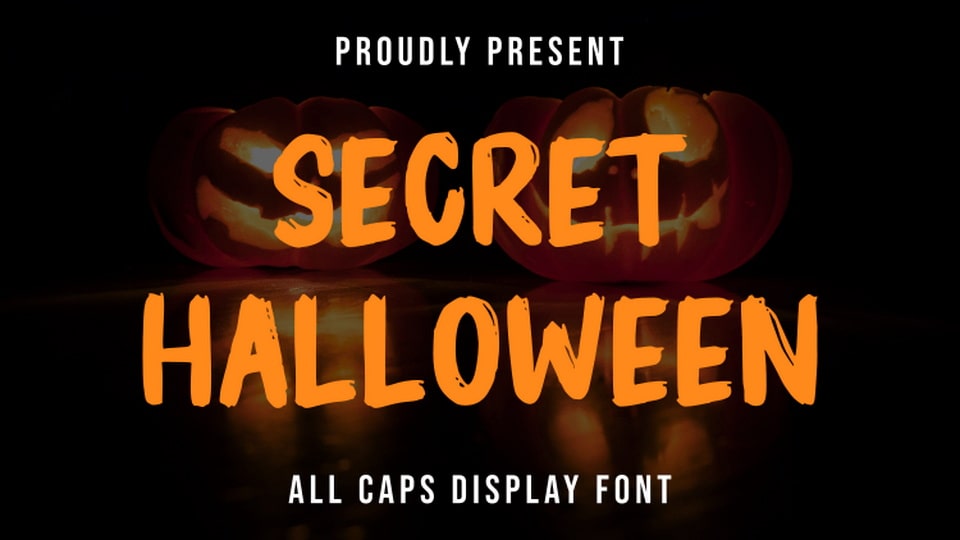
Feb 3, 2025Script & HandwrittenSecret Halloween Font Secret Halloween is a scary, creepy, quirky, and cool display font. It is perfect for October party invitations, cards, greeting cards, social media posts, or pretty much anything related to Halloween. Font DetailsDesigned by: R StudioWebsiteLicense: Free for commercial use Download Secret Halloween FontFile size: 13.62 KBCreated: February 16, 2025Updated: February 16, 2025 Download Explore similar fonts Secret Solver Font Horizon Stylish Font Againts Font Black Rusher Font Halloween Font Night Secret Font # Bold# Brush# Creepy# Halloween# Hand-drawn# Handwriting# Rough# Spooky More fonts by R StudioSherlyn FontAmelya FontClareta ScriptThe Micrander ScriptRetrofest ScriptAngelita ScriptBrigest ScriptSeattle Script